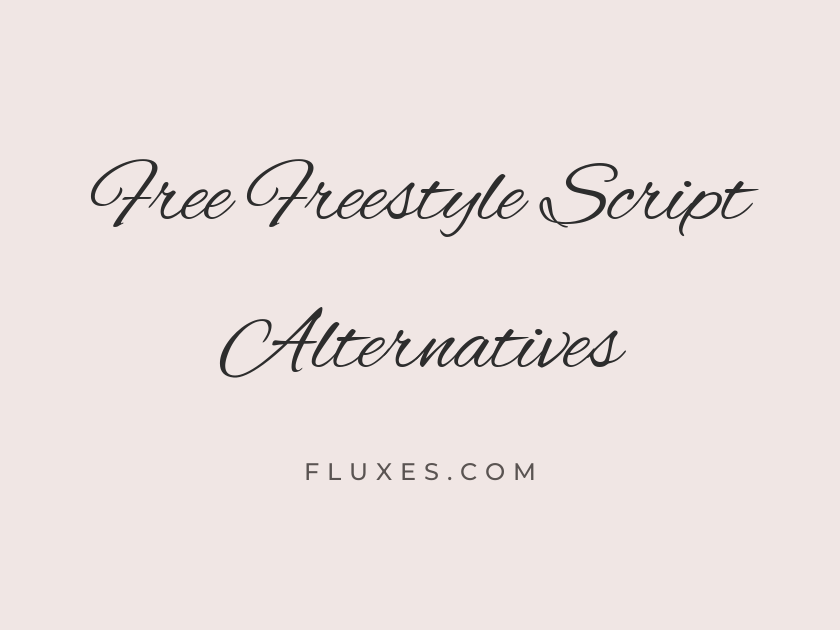
15 Best Free Fonts Alternatives to Freestyle Script
Freestyle Script has long been a go-to for invitations, certificates, and signage that need a personal, hand-lettered touch without tipping into stiff formality. Its loose bounce and connected letterforms give it a friendly, spontaneous energy, but it’s a commercial font that isn’t available on Google Fonts, so anyone building a website or working strictly with open-source type needs a free substitute that captures the same casual, brush-drawn spirit. The good news is that Google Fonts has a strong bench of connecting scripts that echo that same easy, informal charm, and several come close enough to serve as genuine drop-in replacements. This roundup focuses on free script fonts that share Freestyle Script’s loose rhythm and approachable warmth, along with a few closely related alternatives worth knowing about.
1. Alex Brush
Of everything on Google Fonts, Alex Brush sits closest to Freestyle Script’s DNA: it’s a genuine brush script with the same fluid, slightly uneven bounce that reads as handwritten rather than engineered. The strokes swell and taper naturally, giving invitations, place cards, and logotypes an authentic, unforced elegance. If you only swap one font from this list, make it this one.
2. Dancing Script
Dancing Script is the workhorse of the casual-script category, and for good reason. It’s rounded, cheerful, and legible even at modest sizes, which makes it a safer pick than Freestyle Script for body-adjacent uses like menu headers or product labels. The bold weight adds enough presence for standalone headlines without losing the friendly, looping character that made it popular in the first place.
3. Yellowtail
There’s a retro, hand-painted-sign quality to Yellowtail that Freestyle Script fans will recognize immediately. The letters lean forward with a confident swagger, thick and glossy like something brushed onto a diner window. It works best big and bold; at small sizes the thick strokes can start to feel heavy.
4. Satisfy
Satisfy trades polish for personality. Its slightly rough, marker-like strokes feel closer to genuine handwriting than to formal calligraphy, which makes it a natural fit for craft branding, greeting cards, and anything that wants to feel personal rather than printed.
5. Courgette
Courgette rounds off its connecting strokes into soft, bubbly curves, giving it a cheerful, approachable tone that suits bakeries, kids’ products, and casual event graphics. It pairs comfortably with a plain sans-serif body font, letting the script carry all the warmth while the sans handles readability.
6. Pacifico
Originally drawn for a surf shop’s branding, Pacifico carries a laid-back, West Coast energy that’s distinct from Freestyle Script’s more traditional bounce but shares its informal confidence. It has become one of the most recognizable script fonts on the web, so consider it if a slightly more contemporary, logo-ready alternative fits the brief better than a strict historical match.
7. Marck Script
Marck Script reads like a fountain pen note dashed off quickly but legibly. The connections are smooth and the letterforms stay upright and clear, so it holds up well in longer phrases where flashier scripts start to blur together.
8. Bad Script
Despite the self-deprecating name, Bad Script is a clean, casual handwriting font with an authentic imperfect wobble to its lines. It suits informal notes, social graphics, and packaging copy that wants to feel like a personal message rather than a designed headline.
9. Homemade Apple
Homemade Apple looks exactly like its name suggests, genuine ballpoint-pen handwriting with irregular pressure and spacing. It’s less polished than Freestyle Script and works best in small doses, a signature line, a handwritten aside, or a single accent word rather than a full headline.
10. Caveat
Caveat brings a natural, unforced casualness that has made it one of the most widely used handwriting fonts on the web. It stays crisp and readable even in the semibold weight, which makes it more versatile for UI labels, sticky-note graphics, or annotation text than heavier brush scripts.
11. Kristi
Kristi is delicate and lightweight, almost whispered compared to the bolder scripts on this list. It flatters short phrases, monograms, and signature-style logos, but its thin strokes can turn faint or muddy at small sizes, so give it room to breathe.
12. Mrs Saint Delafield
Where Freestyle Script feels casual, Mrs Saint Delafield leans romantic, with tall ascenders and dramatic loops reminiscent of old-fashioned correspondence. It’s a strong choice for wedding stationery or vintage-inspired branding that wants a touch more sentiment than a straightforward casual script provides.
Freestyle Script’s casual charm doesn’t have to come with a licensing headache. With the right free alternative, that same loose, hand-drawn feeling is well within reach for invitations, branding, or any project that wants a personal touch built entirely on open-source type.